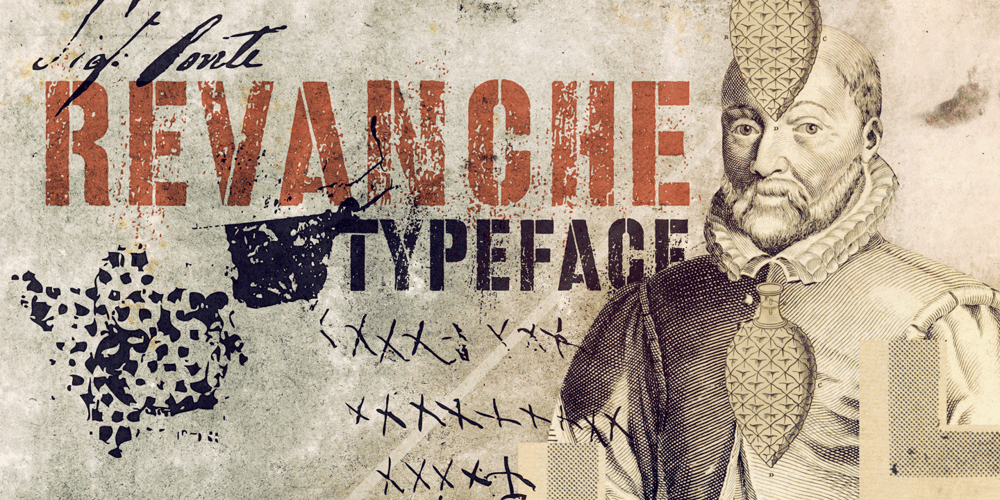
Revanche Font Family was designed by Eduardo Recife and published by Misprinted Type. Revanche contains 3 styles and family package options. Revanche is a distressed stencil font! It is based on old walls stencils and it has that rebel, subversive and military feel to it. Revanche comes with 2 styles: Revanche One and Revanche Two (Alternate), so you have 4 different uppercase character variations, making it hard to repeat the same letter on the same word. Revanche comes also with an alternating feature which mixes UpperCase and LowerCase letters making the job easier for you! If that was not all, the font comes with the X version, full of grunge stains, images, markings that, once incorporated into the font, make it unique!